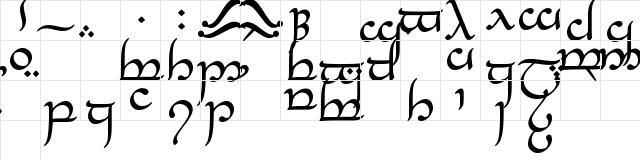
Tengwar_Eldanaro Normal
Designer: Noah Kleinschmidt
Design Context for Tengwar_Eldanaro
Tengwar_Eldanaro is a composed and adaptable typeface that performs quietly and consistently across a wide range of design contexts.